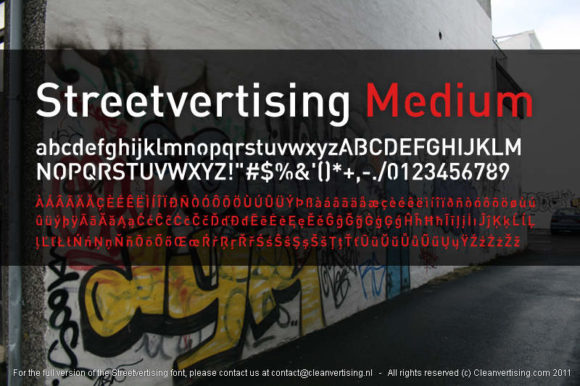
Introducing the Streetvertising Font Collection: For Bold Embroidery and Beyond
Embark on an artistic adventure with Streetvertising, a daring display font that's sure to leave an impression. Step into a world where creativity thrives, where imagination knows no bounds, and where your designs take center stage. Get ready to transform your digital dreams into tangible masterpieces with Streetvertising, your ultimate creative companion.
With Streetvertising, you'll have the power to make your embroidery stand out from the ordinary. Stitch eye-catching designs that gleam with personality and charm. Its dancing curves and riveting angles will add a dash of vitality to any project you undertake. Explore the endless possibilities of embroidery with Streetvertising, where every stitch tells a story.
But Streetvertising isn't limited to embroidery; it's an artistic chameleon, ready to adapt to any creative canvas. Logos, posters, website headers, social media graphics – Streetvertising is a versatile font that adds a spark to all your digital ventures. Unleash your creativity and let Streetvertising guide you on an artistic odyssey.
Streetvertising is more than just a font; it's a conduit for self-expression. Whether you're an avid embroiderer, a creative entrepreneur, or simply a design enthusiast, Streetvertising will magnify your artistic voice. Let it accompany you on your creative journey, turning your ideas into captivating realities.
So, dive into the world of Streetvertising and let your imagination run wild. Experiment with its bold lines, play with its enchanting curves, and unleash your artistic prowess. Transform ordinary designs into captivating masterpieces, and leave your mark on the creative realm.